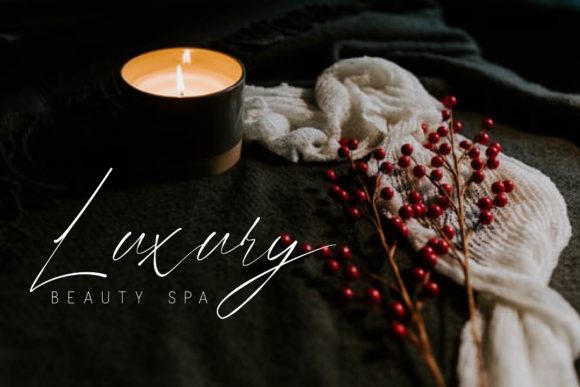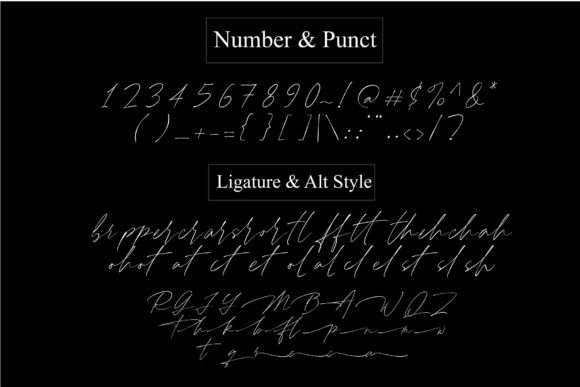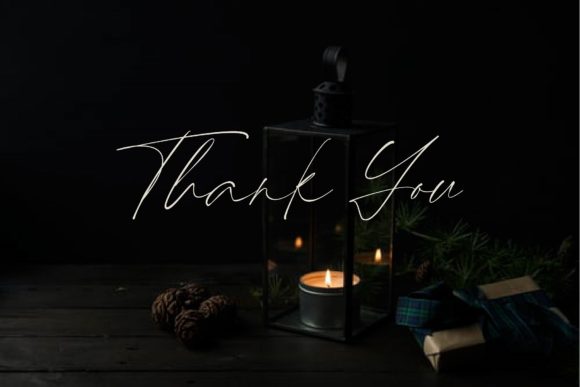
About Winter Font
Winter is a thin lettered and delicate script font. It looks both ravishing and dainty and it will most certainly add a fashionable touch to each of your creations.